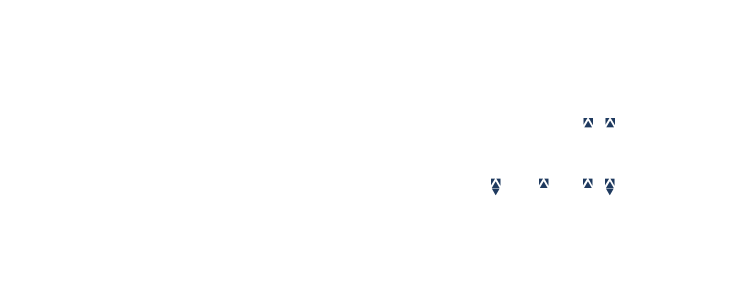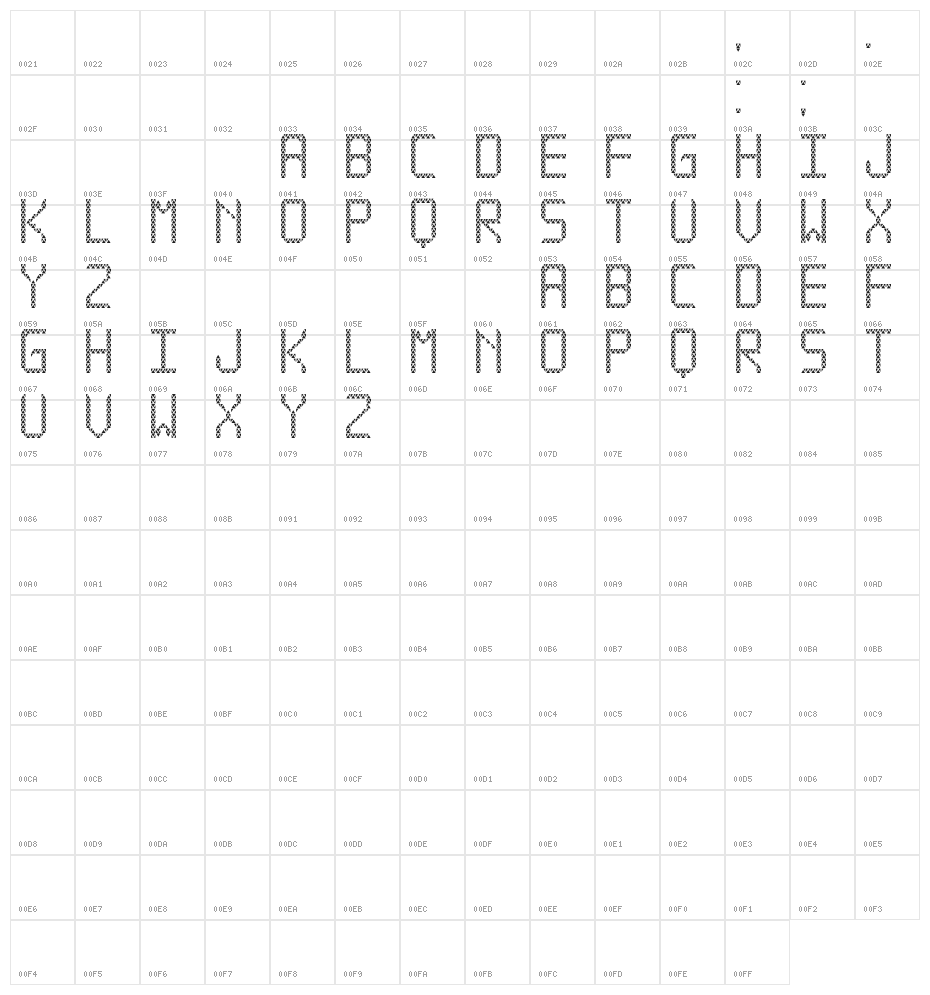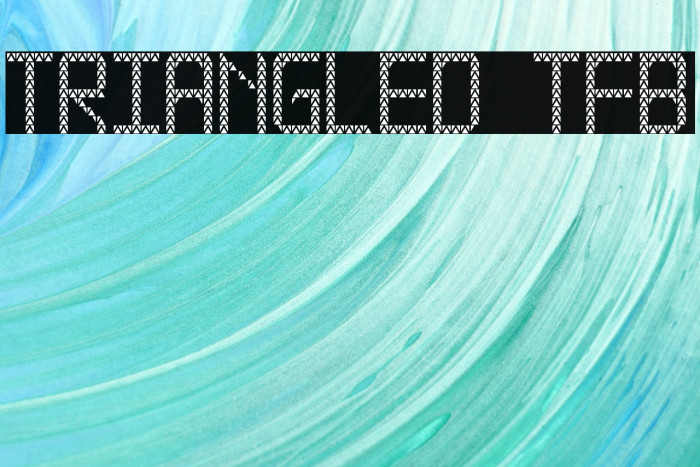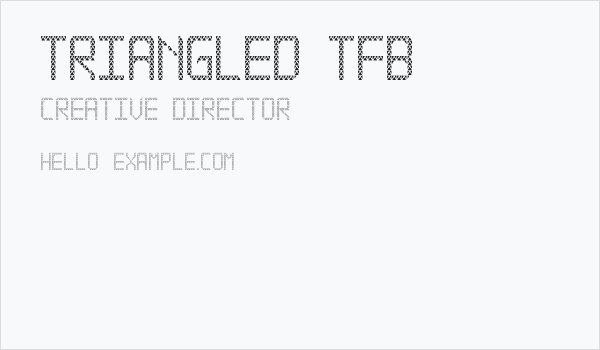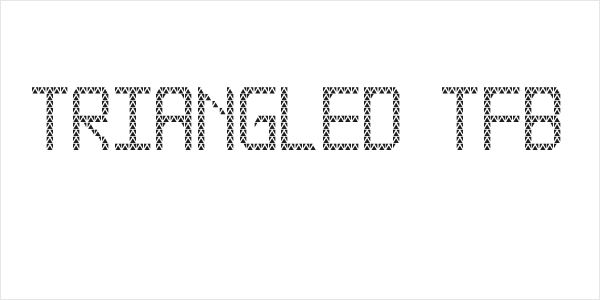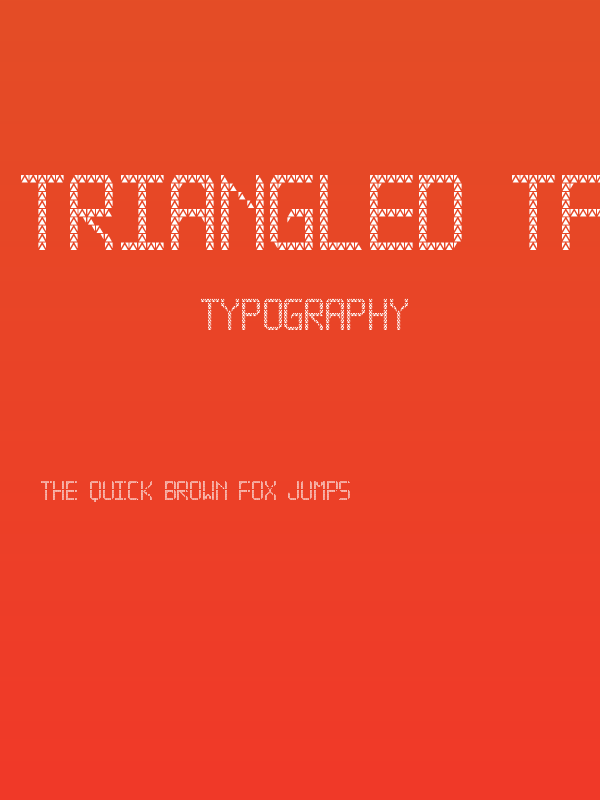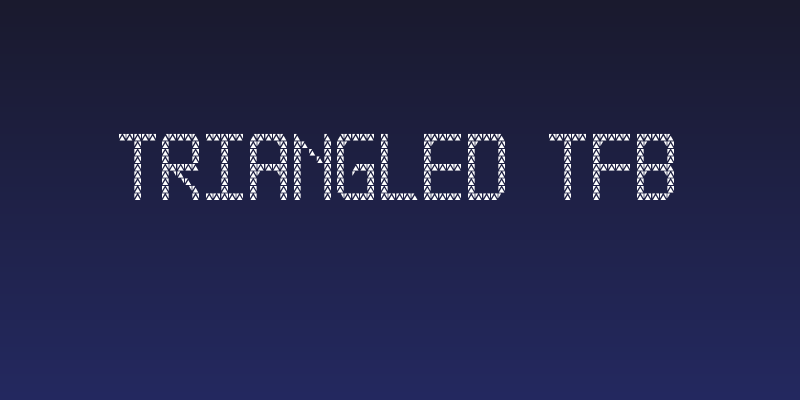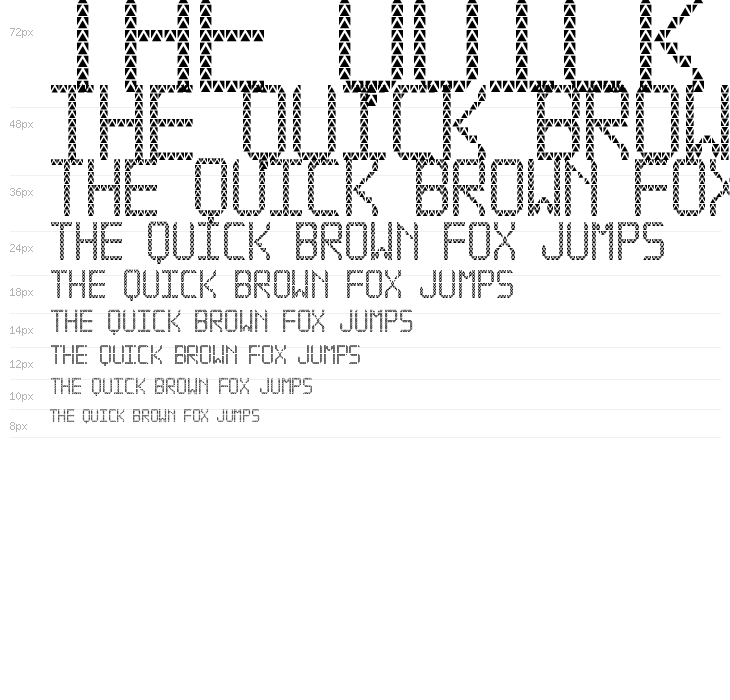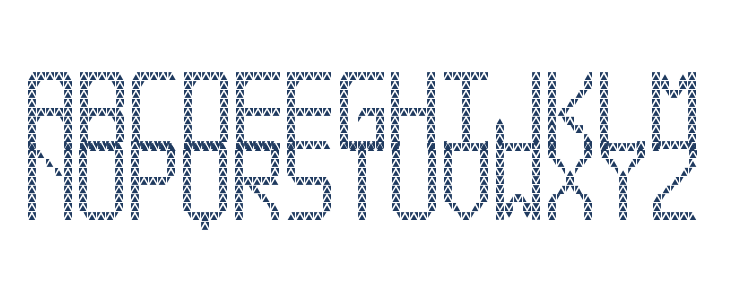
Triangled tfb Font
Triangled tfb Description
This font features a unique design where each character is constructed from a series of small, evenly spaced triangles. The geometric pattern gives it a distinct and modern appearance, making it stand out from traditional typefaces. The uppercase letters are bold and structured, while the lowercase letters maintain the same triangular motif, ensuring consistency throughout the font. The numbers and special characters are also designed with the same triangular pattern, providing a cohesive look. This font's intricate design makes it suitable for creative and artistic projects where a bold statement is desired.
| Proposed Projects | Ideal for branding, posters, digital art, and any project requiring a striking and modern typeface. |